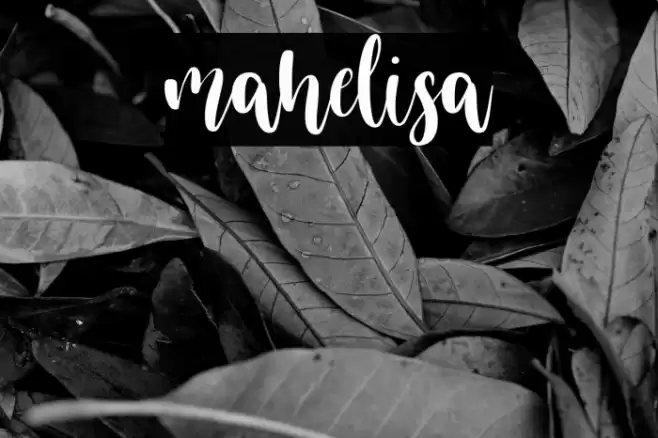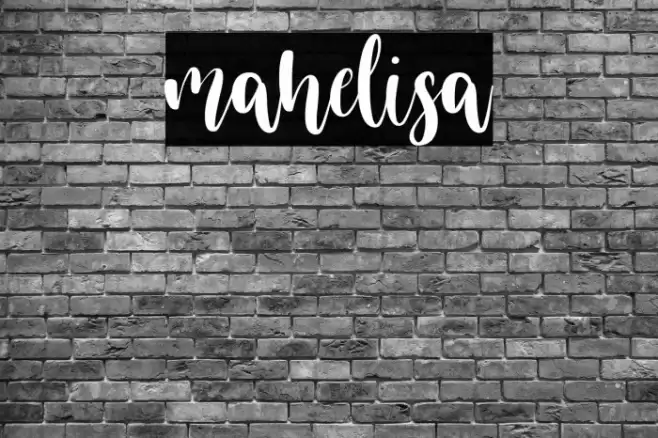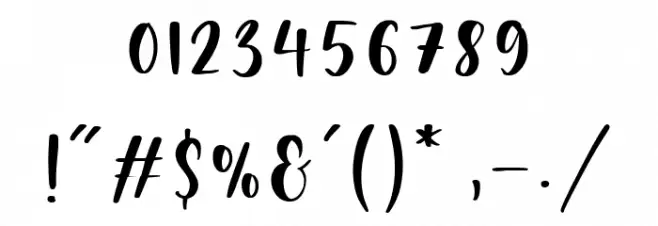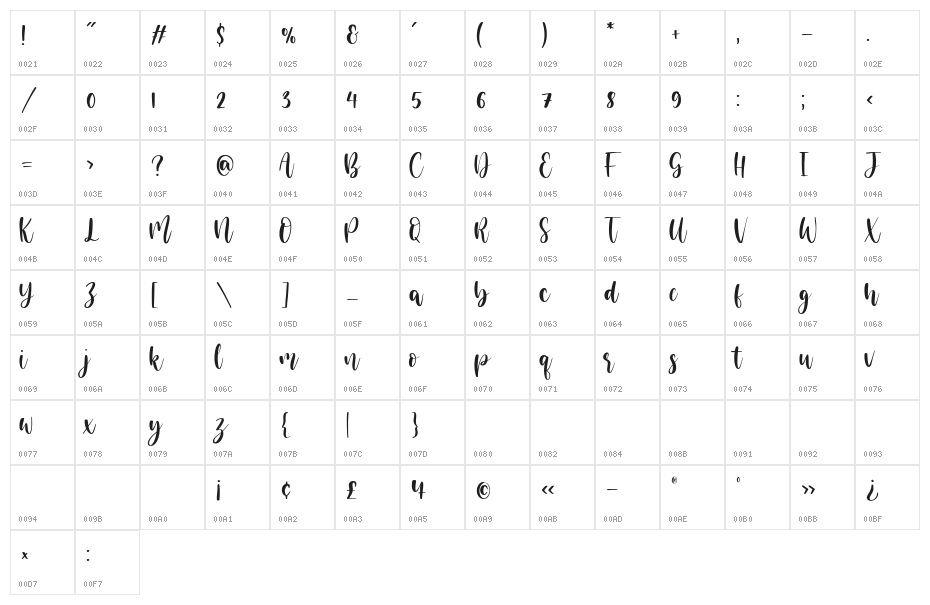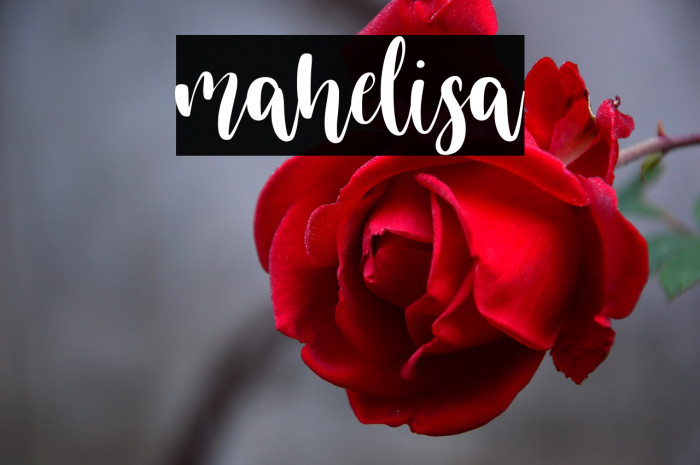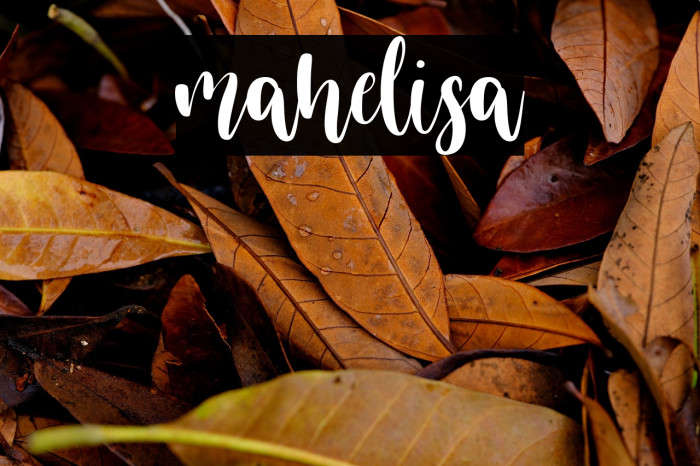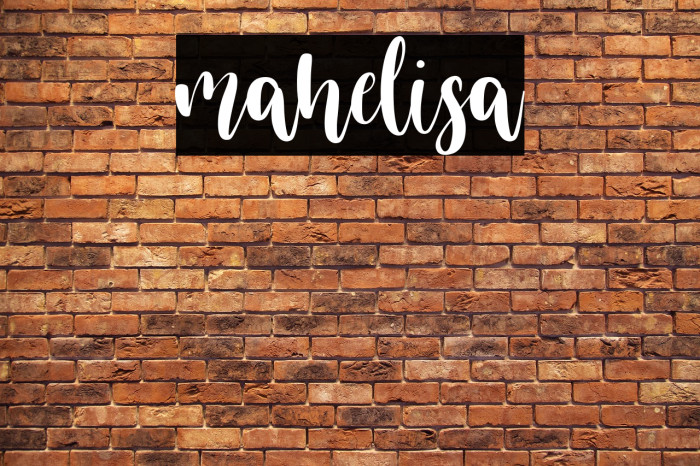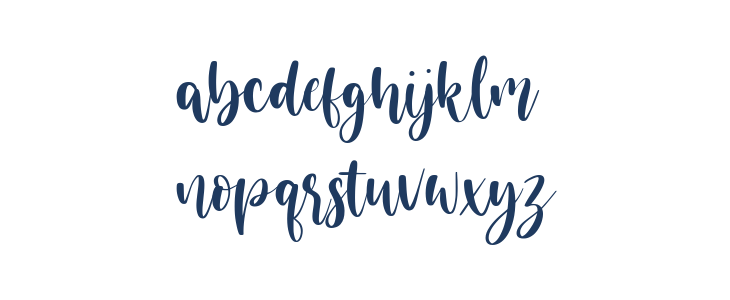
mahelisa Font
mahelisa Description
This font features a lively and flowing script style, characterized by its bold, sweeping strokes and elegant curves. The uppercase letters are tall and expressive, with a playful yet sophisticated flair. The lowercase letters maintain a consistent rhythm, enhancing readability while retaining a sense of movement. Numbers and special characters are designed to complement the overall aesthetic, ensuring a cohesive look across all text elements. The font's dynamic nature makes it suitable for a variety of creative applications, offering a modern twist on traditional script styles.
A bold, flowing script font with elegant curves and dynamic strokes from Uncategorized fonts.
- Proposed Projects: Ideal for wedding invitations, branding, greeting cards, and social media graphics.
- Use Case: Logos, Headlines, Invitations